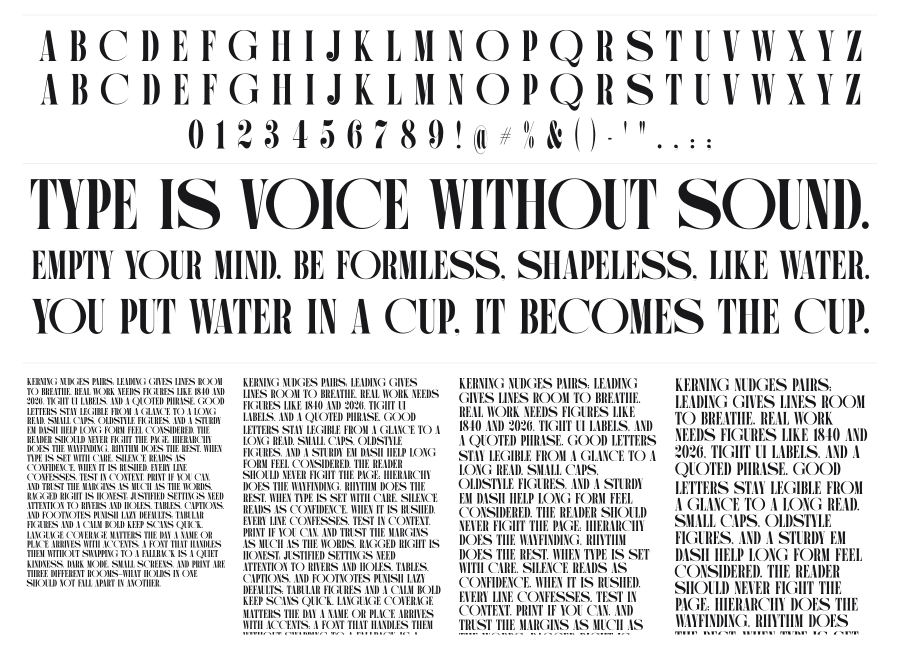
Jengky
Jengky is a condensed Didone serif with extreme stroke contrast and a distinctly high-fashion edge. The near-vertical stress, flat unbracketed serifs, and dramatic thick-to-thin transitions place it firmly in the Bodoni and Didot tradition, but the tight condensed proportions give it a contemporary magazine quality. It performs best at large display sizes where the hairlines can breathe.